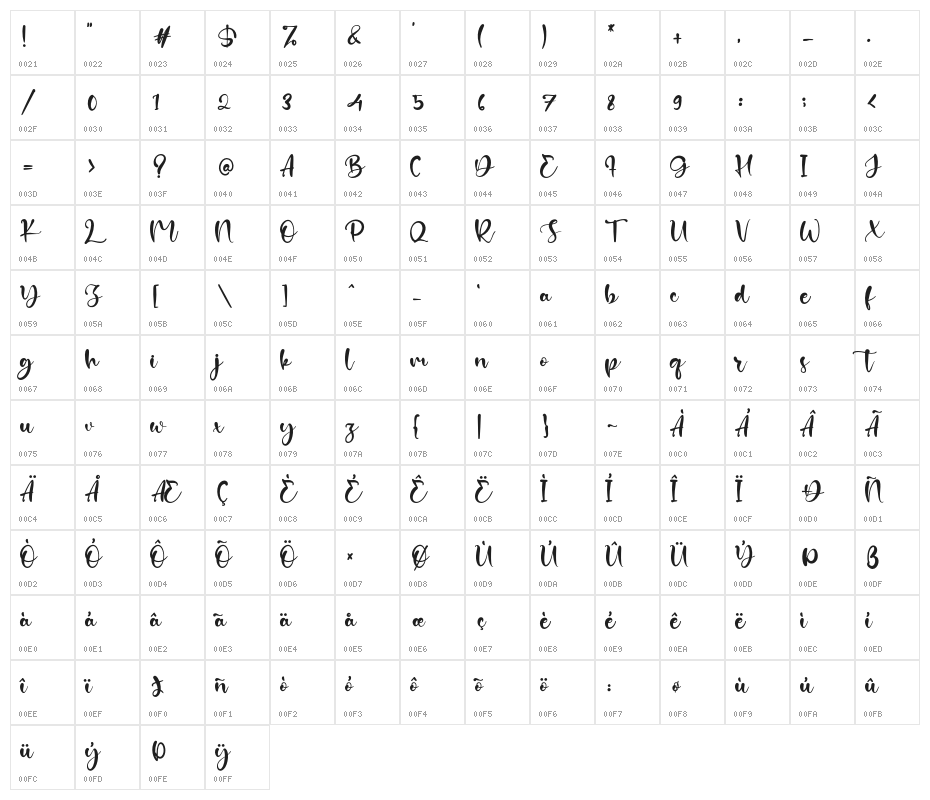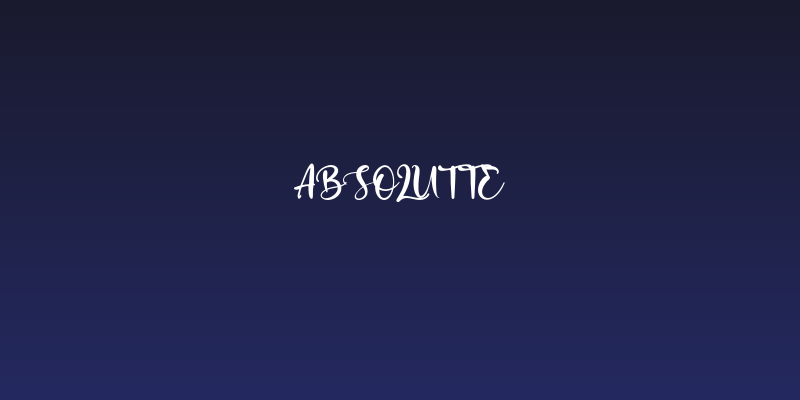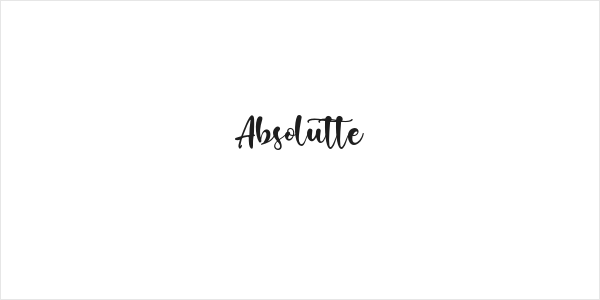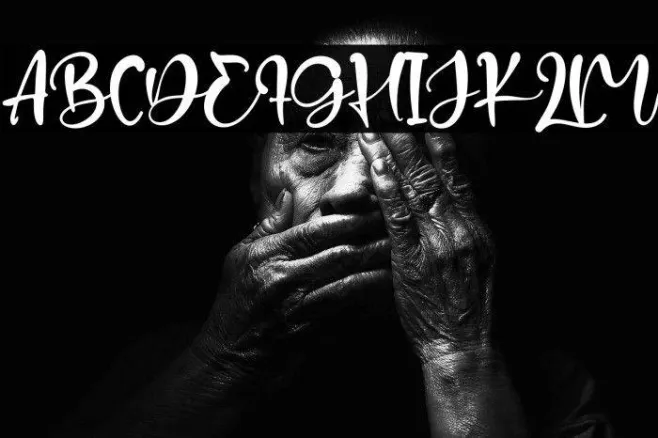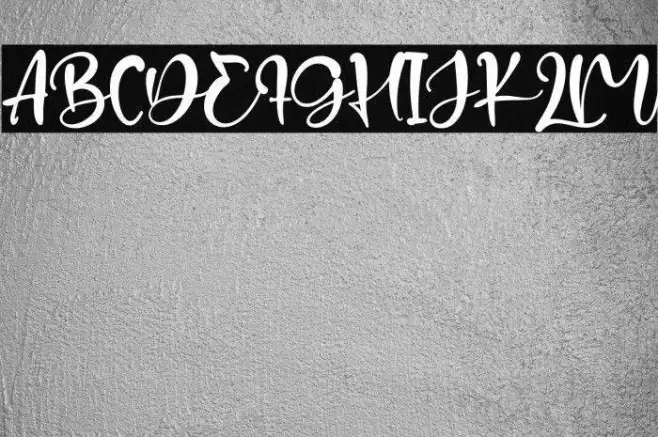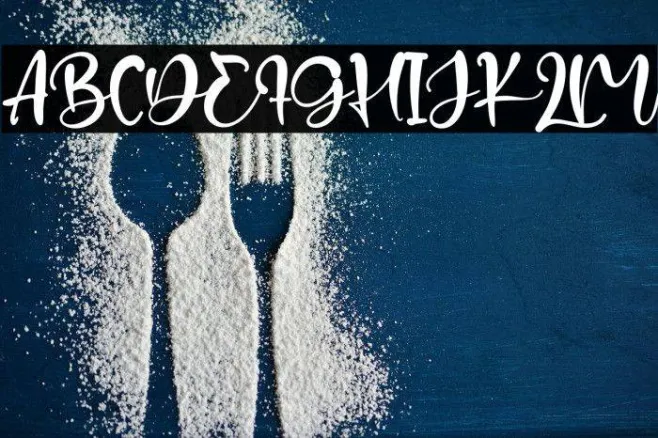
Absolutte Font
Absolutte Description
This font features a lively and expressive script style, characterized by its flowing, cursive letters that convey a sense of elegance and creativity. The uppercase letters are bold and dynamic, with sweeping curves and flourishes that add a touch of sophistication. The lowercase letters maintain a consistent flow, enhancing readability while retaining the artistic flair. Numbers and special characters are crafted with the same attention to detail, ensuring a cohesive look across all elements. The overall design is playful yet refined, making it suitable for a variety of creative projects.
| Proposed Projects | Ideal for wedding invitations, greeting cards, branding, and artistic posters. |